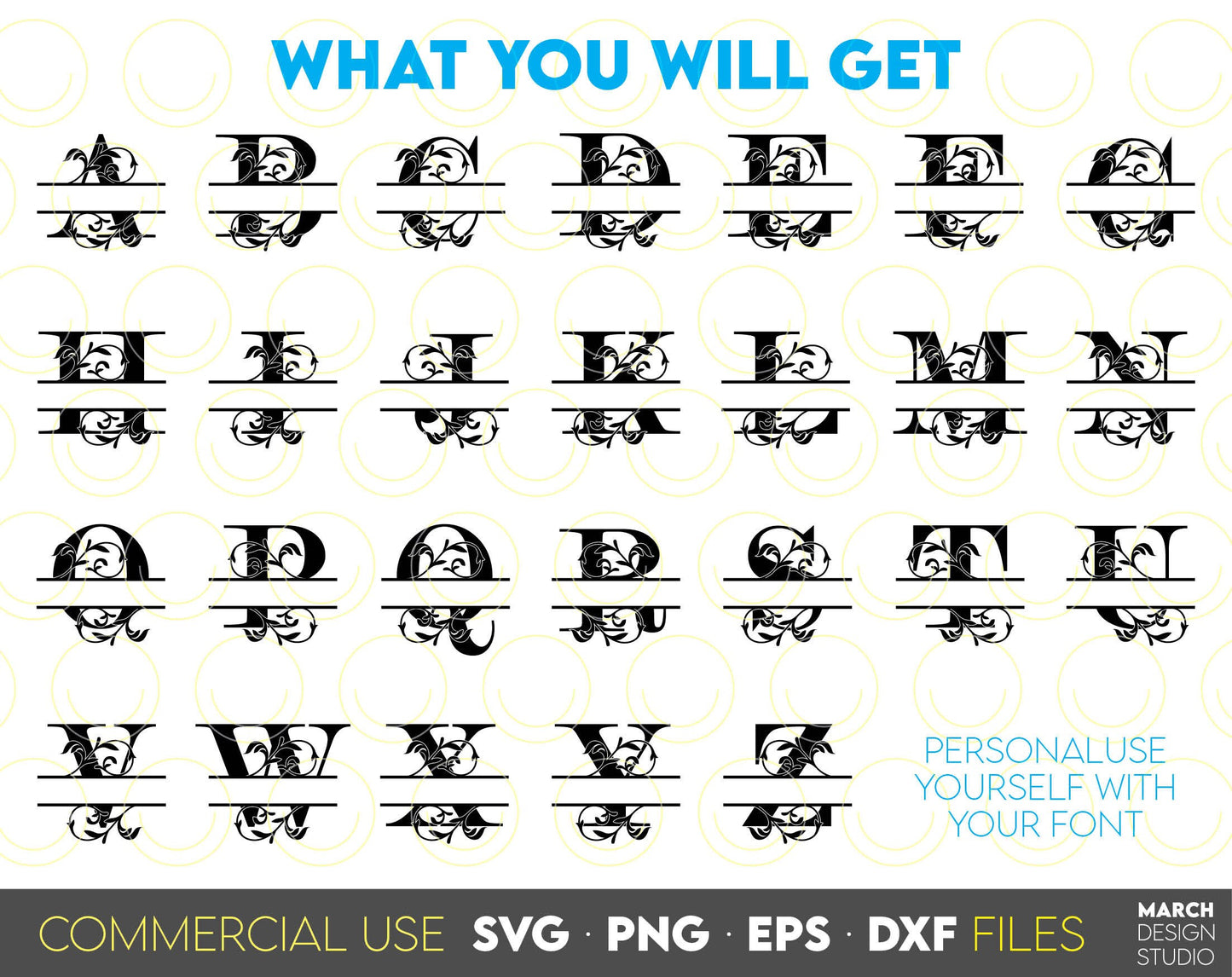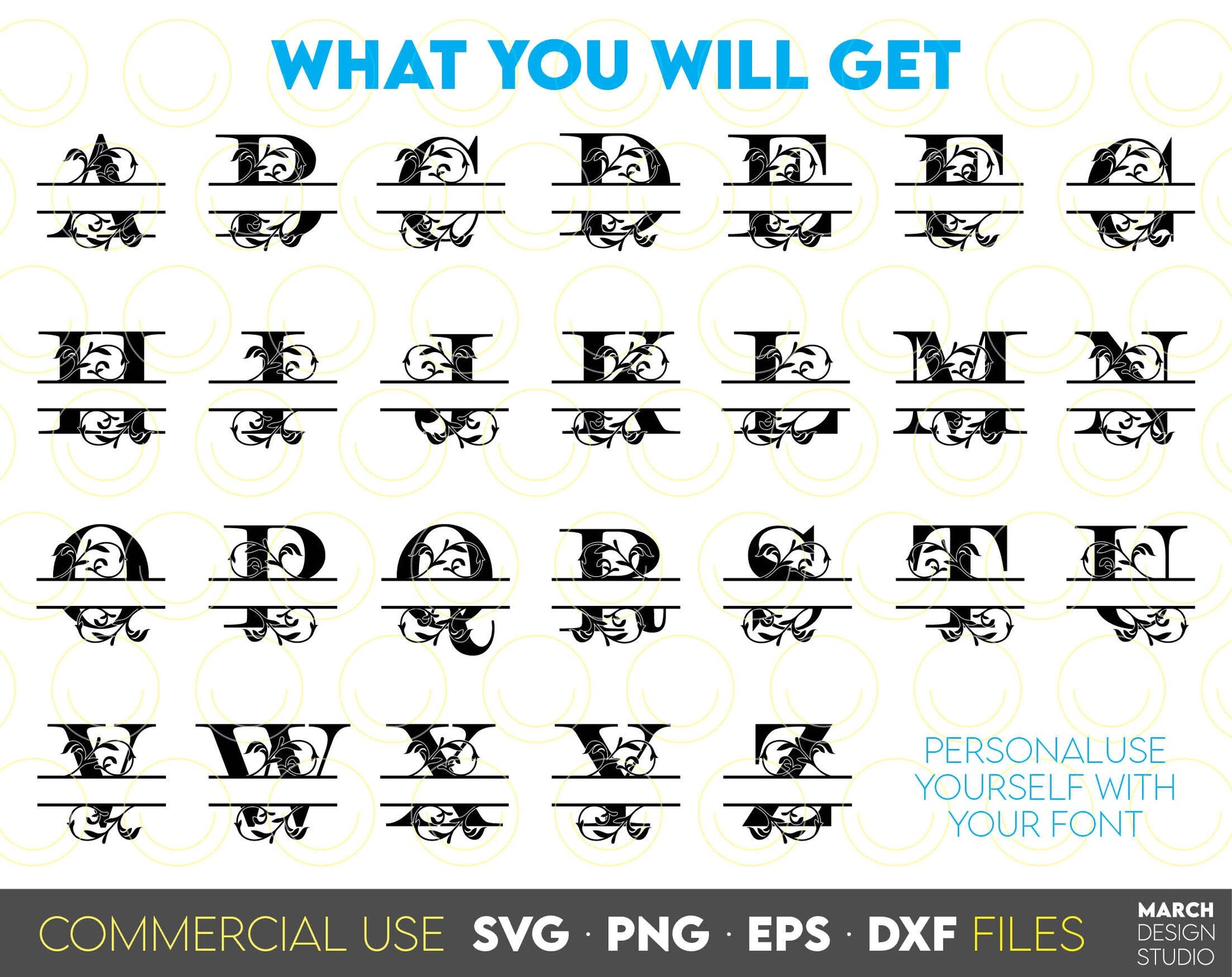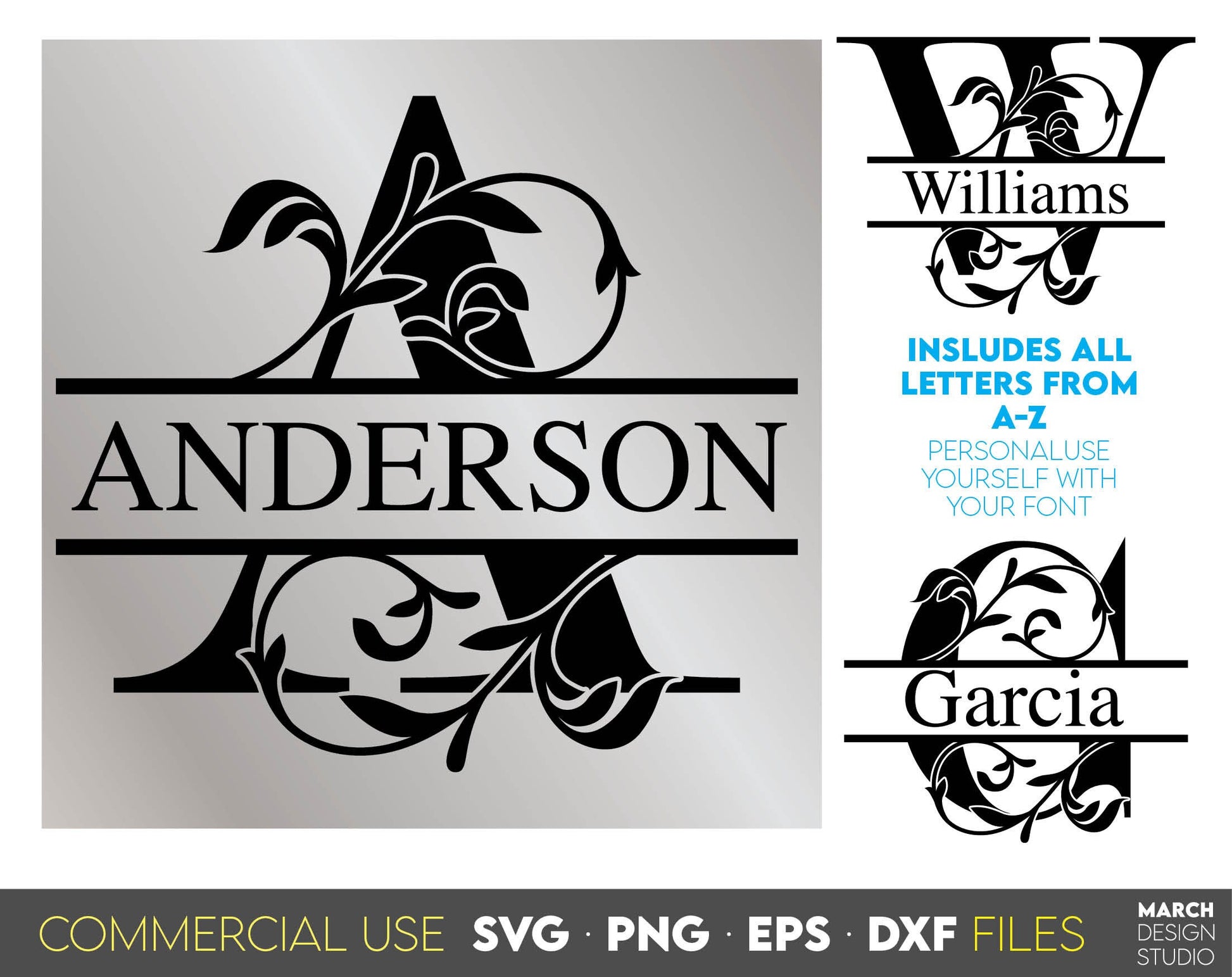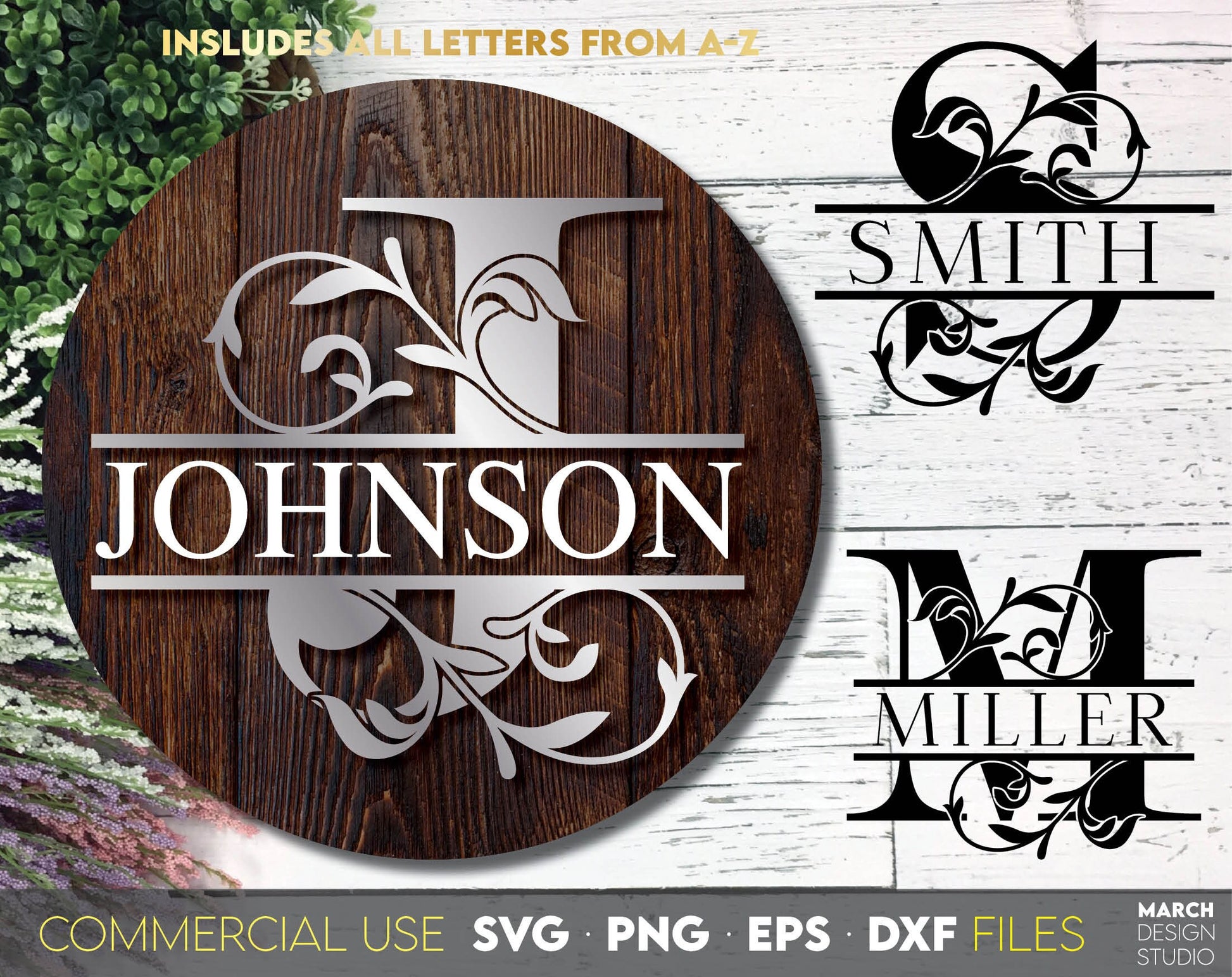
Floral Split Monogram Fonts design, you can use them to surprise your loved ones. Use monogram letters to make gifts for various important events, - Christmas, Birthdays, Weddings, etc. Compatible with Cricut, Silhouette or other machines. Buy now for a good price and enjoy!